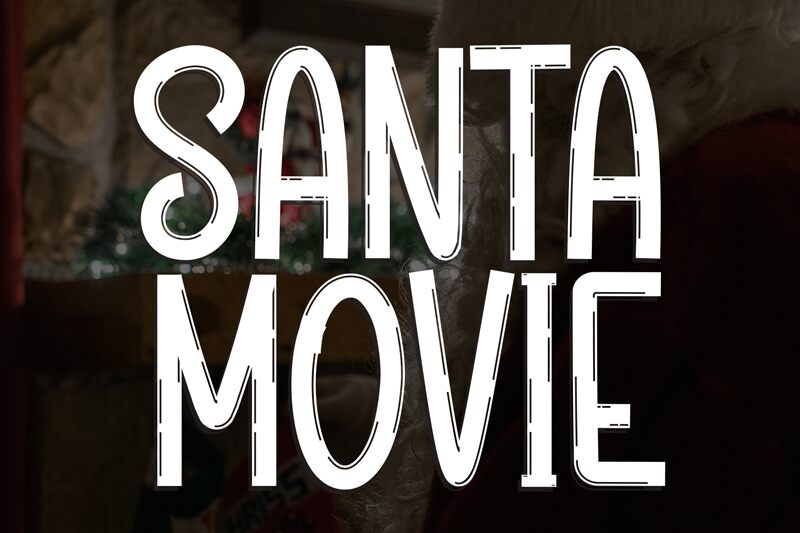
Santa Movie font by Andi Moz is a free font with a fancy, expressive aesthetic. It combines dynamic and artistic elements for a touch of decorative flair and impact. The elaborate shapes are ideal for grabbing attention and displaying the creative side of the design. Its exceptional style is visible in each letter with a different interesting look of the font.
The uniqueness of this original typeface makes it worthy of the attention of designers who seek to achieve a dazzling outcome on posters, quotes, social media posts, and invitations. It can also be especially great for projects related to the film and entertainment business, but it can work in plenty of other themes too.
This is a sweet and friendly handwritten display font. Cute and fun, this font is ideal for writing wedding invitations, cards, or any other design that might need a playful touch!